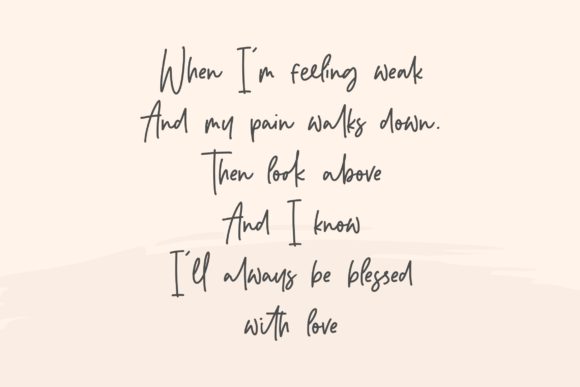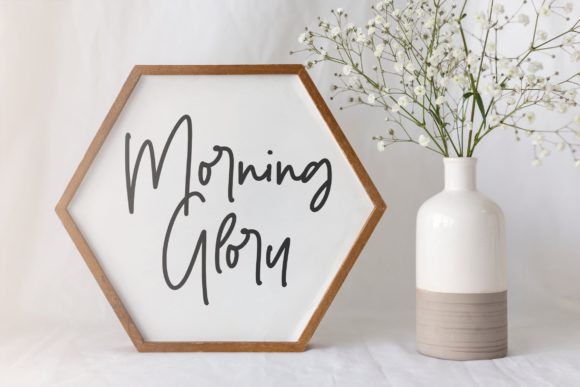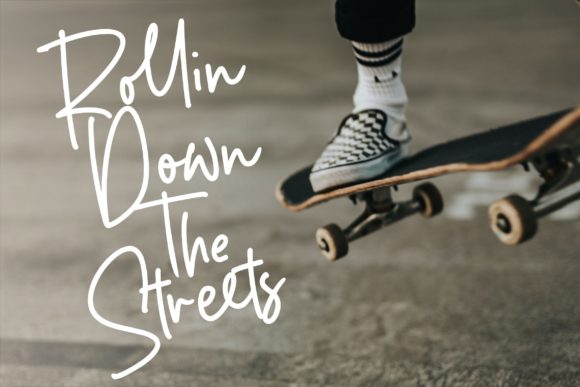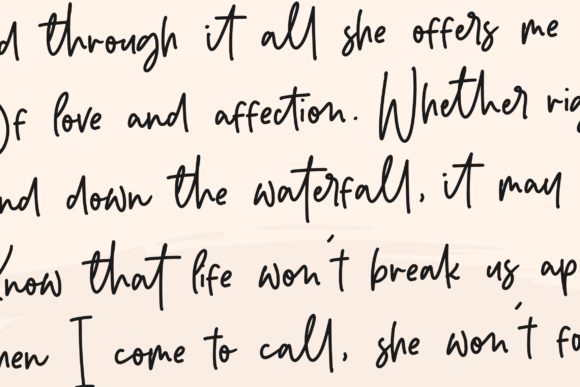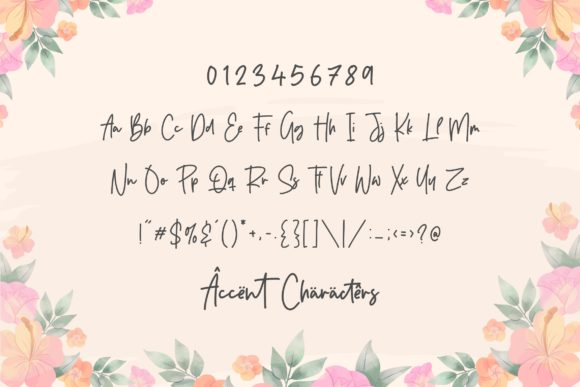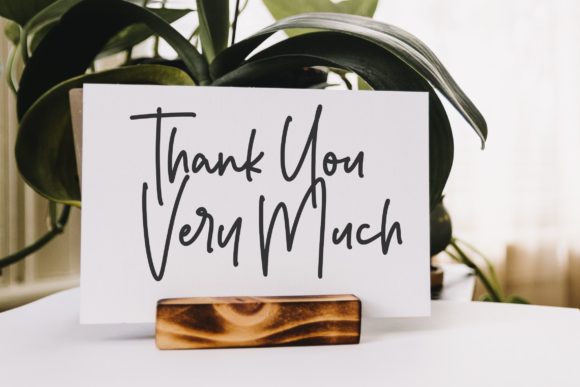
Bridgestown Font: The Friendly and Versatile Typeface for Your Design Needs
Are you on the hunt for a font that exudes warmth, friendliness, and approachability? Look no further than Bridgestown Font! This delightful handwritten font is designed to elevate your design projects to new heights, making it perfect for a wide range of applications. In this article, we’ll dive into the world of Bridgestown Font, exploring its features, uses, and benefits for designers and crafters alike.
What is Bridgestown Font?
Bridgestown Font is a cute and casual handwritten font that boasts an incredibly friendly feel. Its unique charm lies in its ability to convey a sense of approachability and warmth, making it an excellent choice for designs that require a personal touch. Whether you’re working on branding, headings, wedding designs, invitations, signatures, logos, labels, or any other project, Bridgestown Font is sure to impress.
Key Features of Bridgestown Font
- Cute and Casual: Bridgestown Font features a playful, handwritten style that’s perfect for designs that require a touch of whimsy and personality.
- Friendly Feel: The font’s unique charm lies in its ability to convey a sense of warmth and approachability, making it ideal for designs that require a personal touch.
- Versatile: Bridgestown Font is suitable for a wide range of design projects, from branding and headings to wedding designs, invitations, signatures, logos, labels, and more.
- Elegant and Refined: Despite its casual nature, Bridgestown Font exudes an air of elegance and refinement, making it perfect for high-end designs.
Uses of Bridgestown Font
Bridgestown Font is an incredibly versatile typeface that can be used in a variety of design projects, including:
- Branding: Use Bridgestown Font to create a friendly and approachable brand identity that resonates with your target audience.
- Wedding Designs: Add a touch of whimsy and romance to your wedding designs, including invitations, programs, and decorations.
- Headings and Titles: Use Bridgestown Font to create eye-catching headings and titles that add a personal touch to your designs.
- Invitations and Stationery: Create beautiful invitations, greeting cards, and stationery that showcase your personality and style.
- Logos and Icons: Use Bridgestown Font to create custom logos and icons that reflect your brand’s friendly and approachable personality.
Benefits of Using Bridgestown Font
So, why choose Bridgestown Font for your design projects? Here are just a few benefits of using this delightful typeface:
- Unique and Memorable: Bridgestown Font is sure to make your designs stand out from the crowd, thanks to its unique and memorable style.
- Easy to Read: The font’s clear and legible design makes it easy to read, even at small sizes.
- Time-Saving: With Bridgestown Font, you can create professional-looking designs in no time, thanks to its versatility and ease of use.
In conclusion, Bridgestown Font is a friendly and versatile typeface that’s perfect for designers and crafters looking to add a personal touch to their designs. With its cute and casual style, elegant and refined feel, and wide range of uses, Bridgestown Font is sure to become a staple in your design toolkit. So why wait? Download Bridgestown Font today and start creating stunning designs that showcase your personality and style!